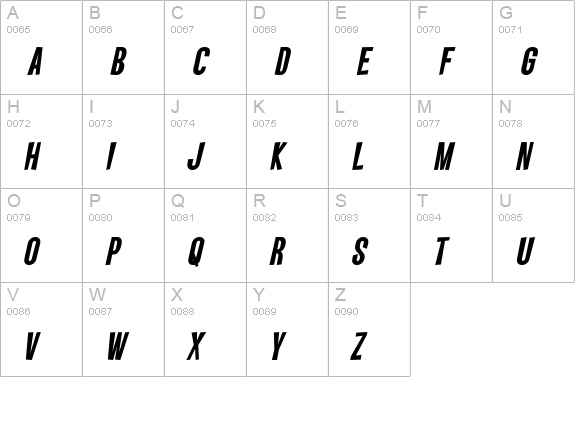
Introducing the captivating Vanishing Boy BTN BoldOblique font, a stunning typeface that effortlessly combines modern sophistication with a touch of artistic flair. Its bold and oblique design exudes confidence and creativity, making it the perfect choice for projects that demand attention and intrigue. With its sleek curves and sharp edges, Vanishing Boy BTN BoldOblique commands the spotlight, effortlessly drawing the eye to its unique letterforms. Each character is meticulously crafted, ensuring a seamless flow of the text and enhancing readability. Whether you are designing a stylish logo, crafting an eye-catching poster, or creating a memorable website, Vanishing Boy BTN BoldOblique will elevate your project to new heights. Its versatility allows it to adapt to various design styles, from edgy and contemporary to elegant and refined. The best part? Vanishing Boy BTN BoldOblique is available for free download at FontsMarket.com. This means you can enhance your creative endeavors without breaking the bank. Simply head over to FontsMarket.com, and with just a few clicks, you'll have this stunning font at your fingertips. Don't miss out on the opportunity to elevate your designs with the captivating Vanishing Boy BTN BoldOblique font. Download it for free at FontsMarket.com and unleash your creativity today.